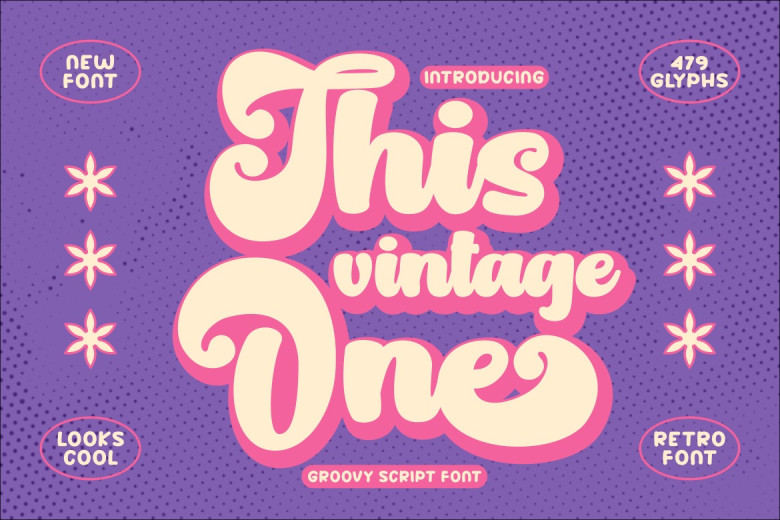
This Vintage One Font
This Vintage One – Retro Font is a script typeface distinguished by a bold retro aesthetic with a nostalgic edge. Constructed using various alternative characters with distinctive variations and swirls found only in certain fonts, its weight and style make it suitable for many uses.
When designing packaging, logos invites, greeting cards for greeting magazines, posters titles or business branding projects with vintage or retro styles this font adds timeless charm and elegance to your work while its various characters and swooshes provide endless design options allowing for creating stunning vintage-themed designs!
This Vintage One Retro Script Font